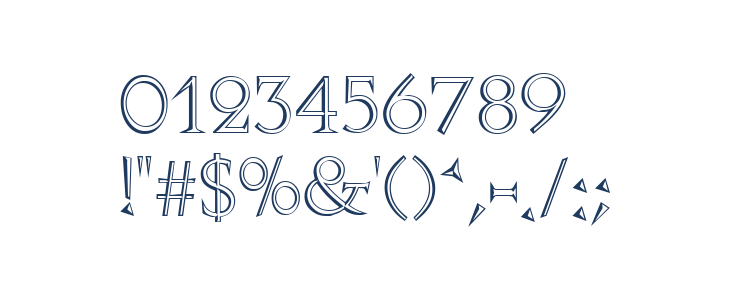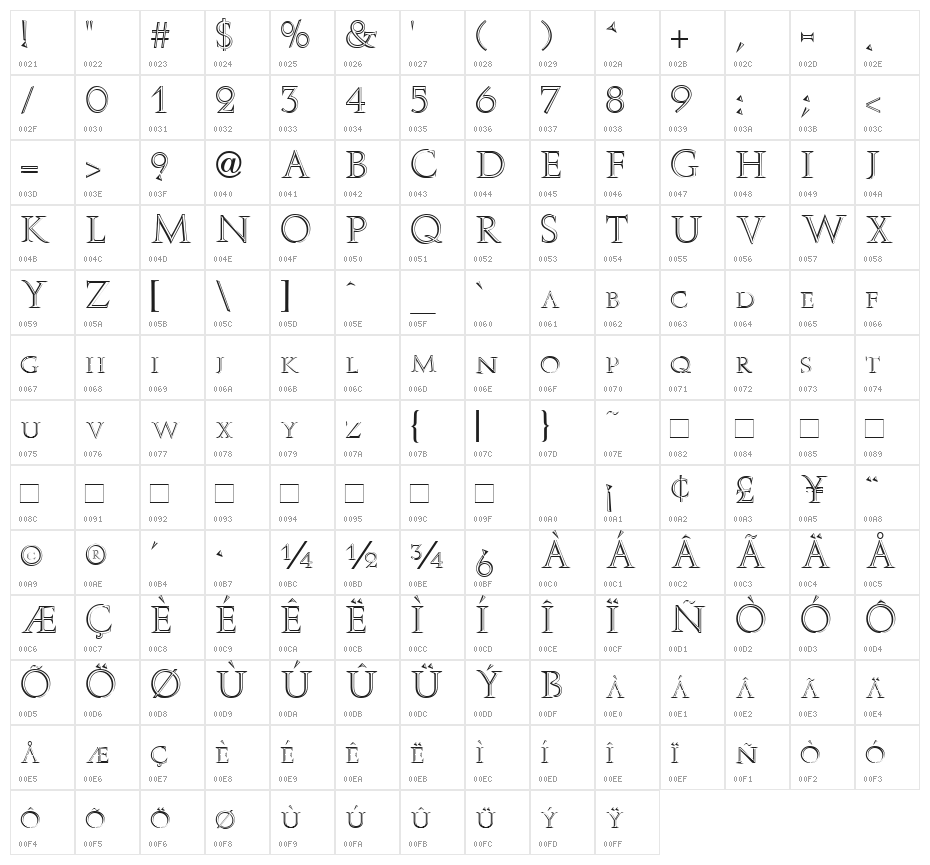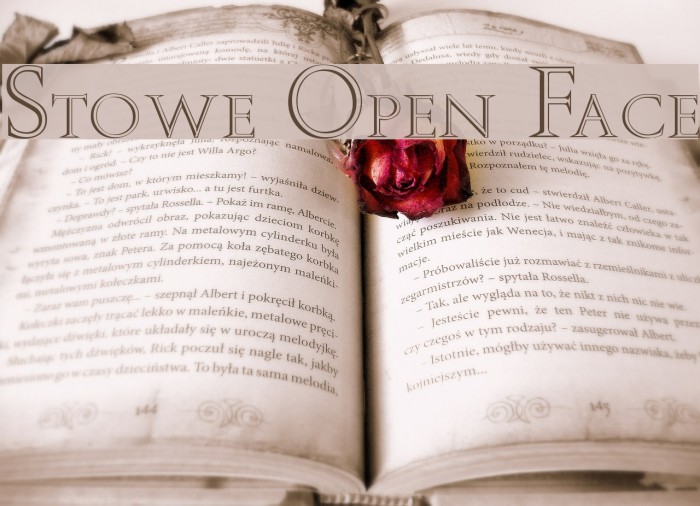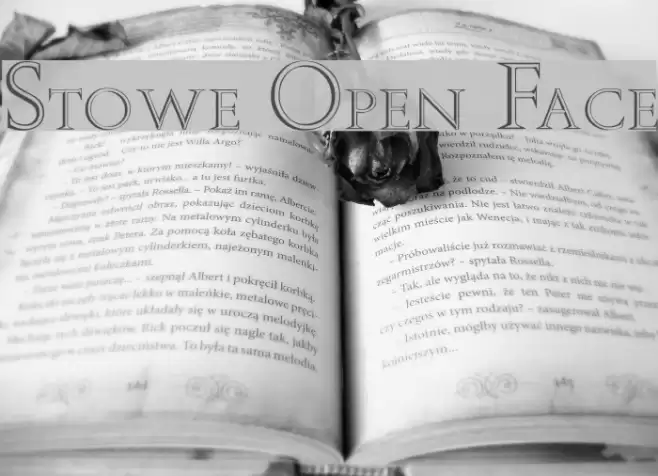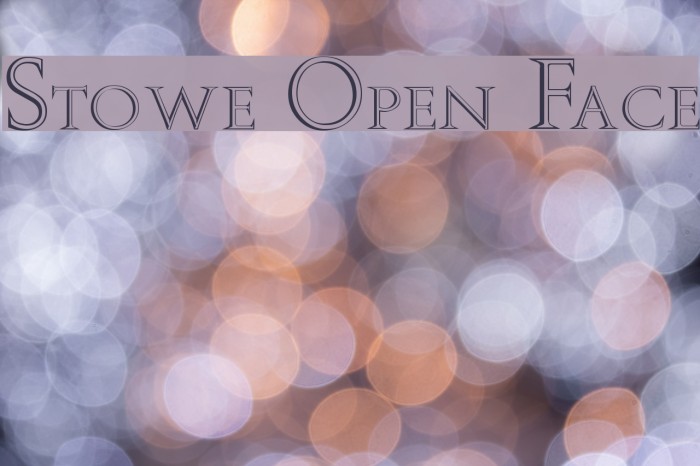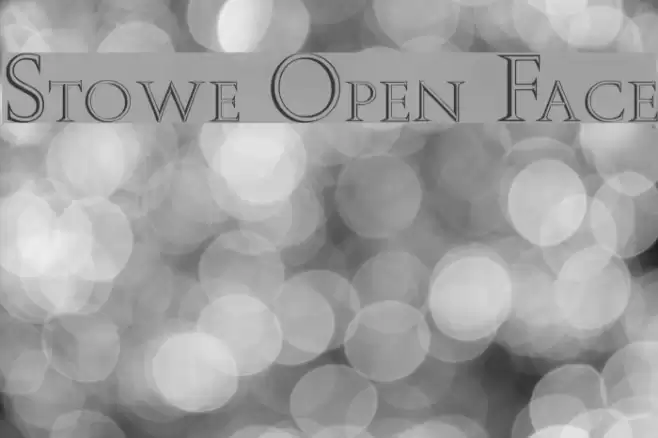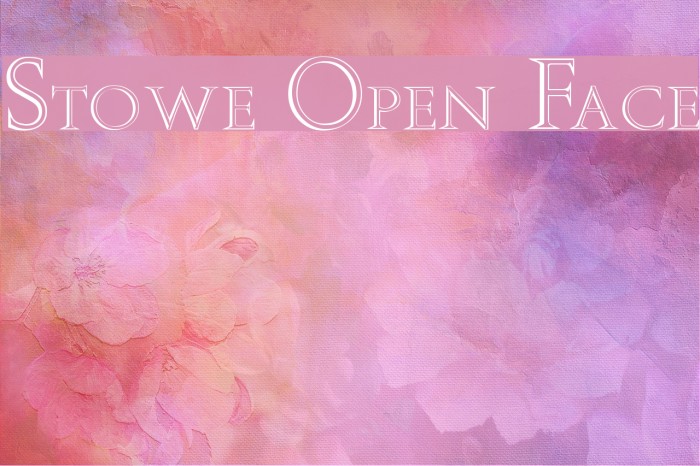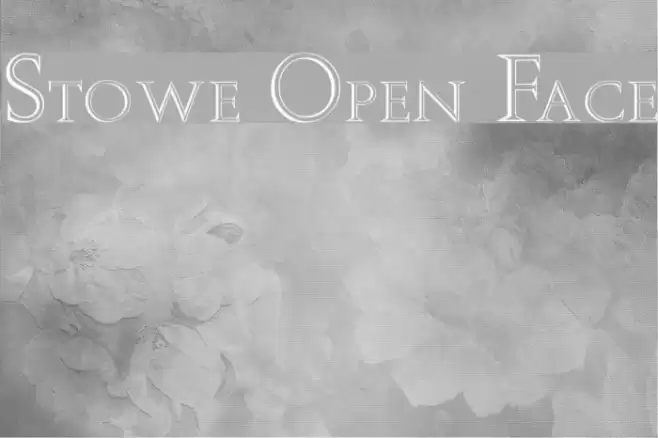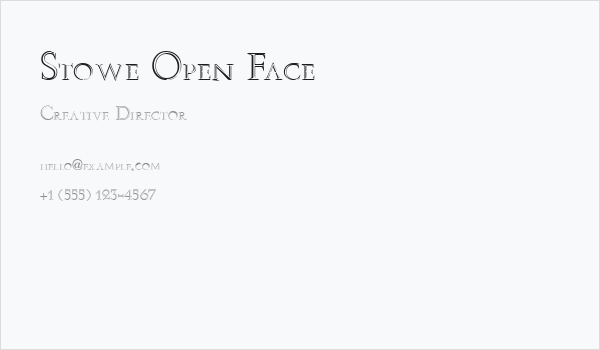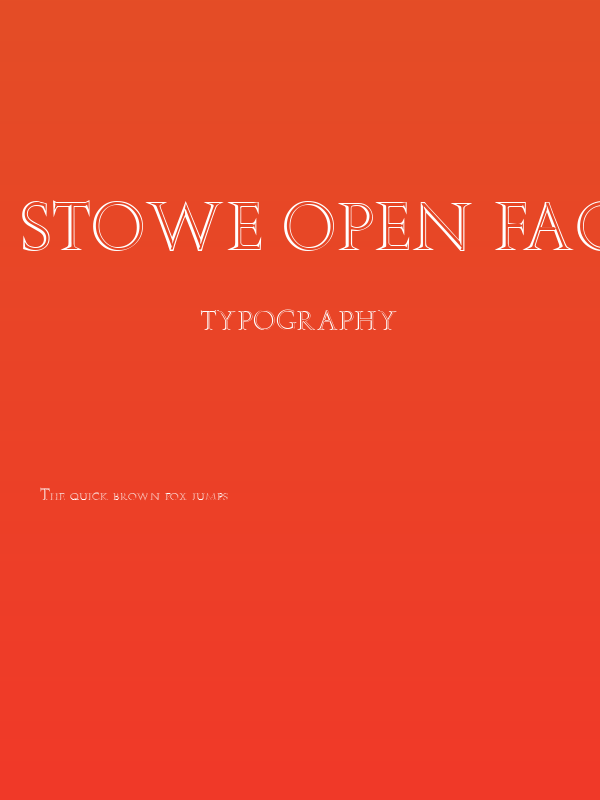
Stowe Open Face Font
Stowe Open Face Description
This font features a unique open-face design with a classic serif structure. The letters are outlined, giving them a hollow appearance that adds a touch of elegance and sophistication. The uppercase and lowercase characters maintain a consistent style, with sharp serifs and clean lines that enhance readability. The numerals are equally well-crafted, matching the overall aesthetic of the alphabet. Special characters are included, each designed to complement the font's distinctive style. This font is ideal for projects that require a blend of traditional and modern elements.
Overall StyleClassic